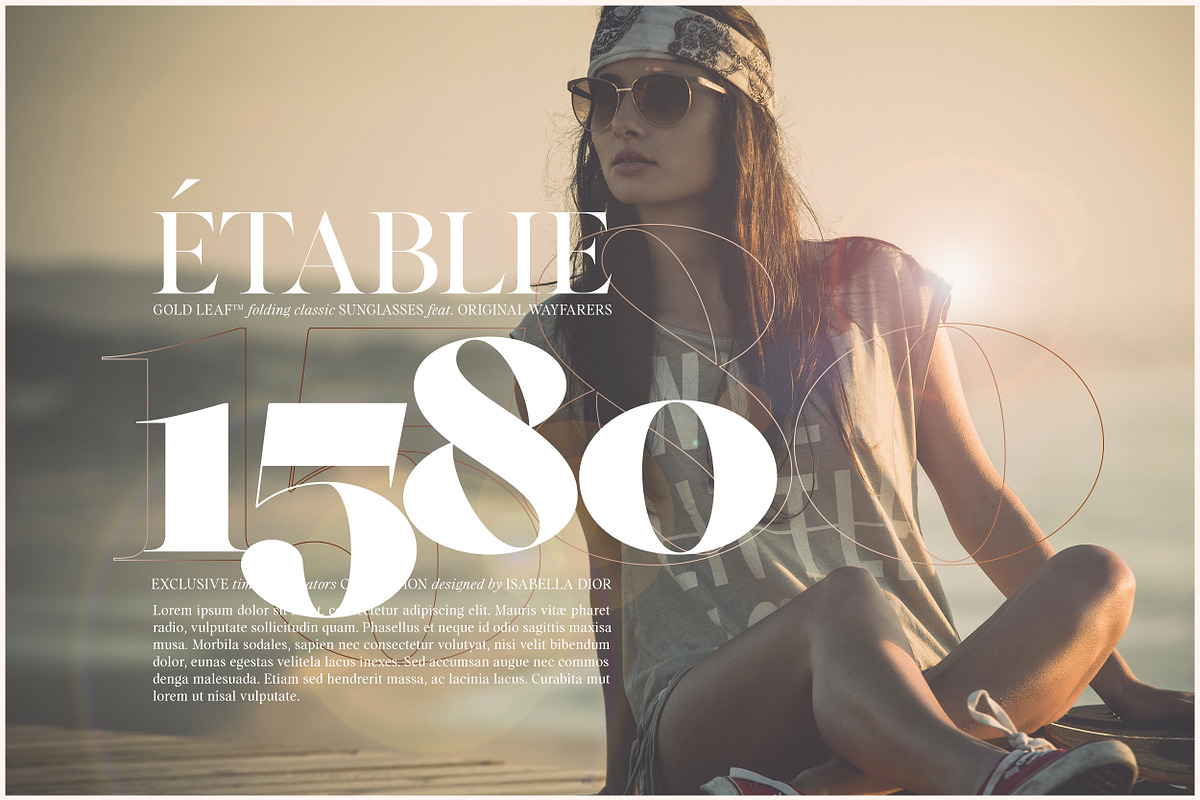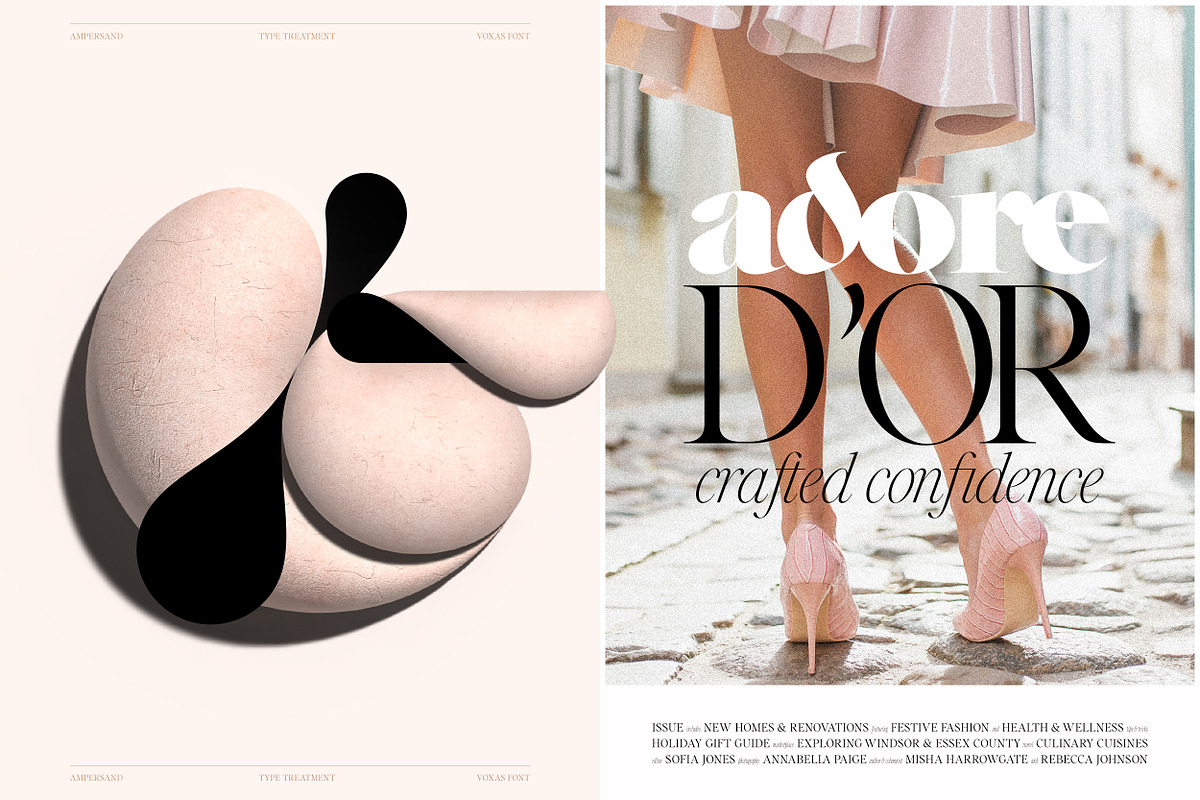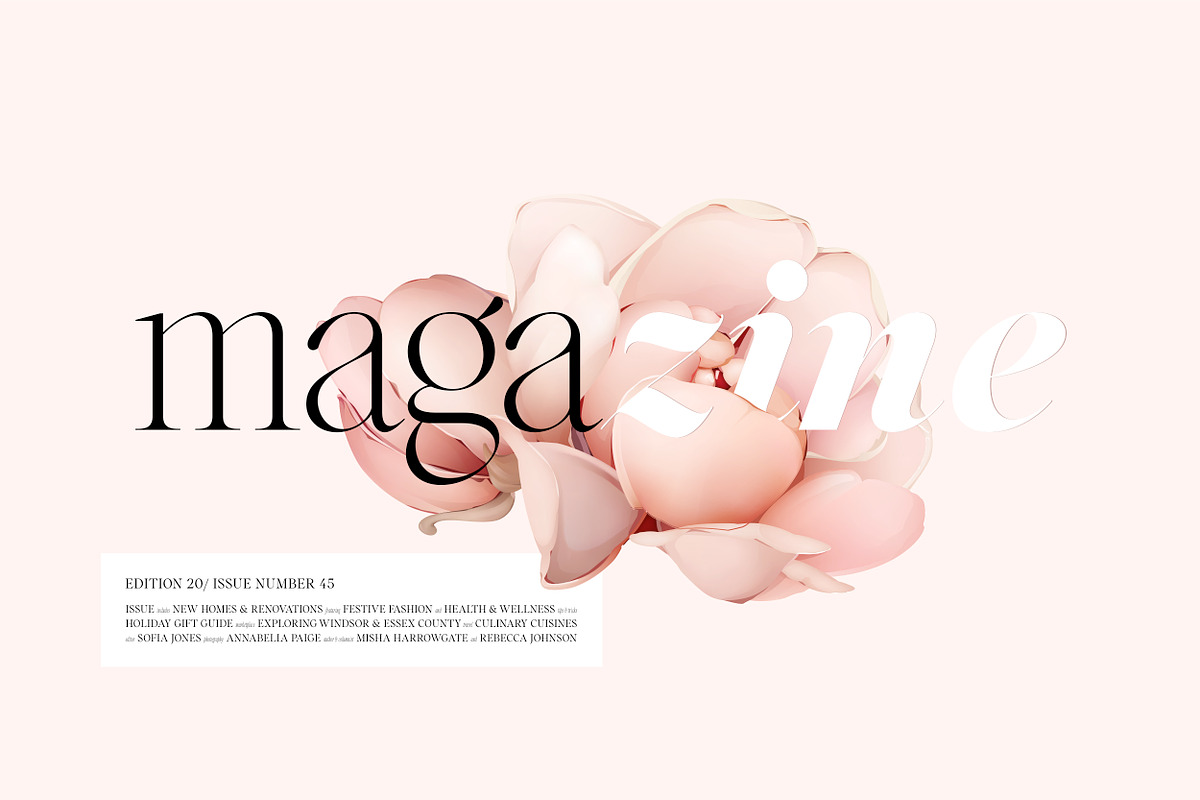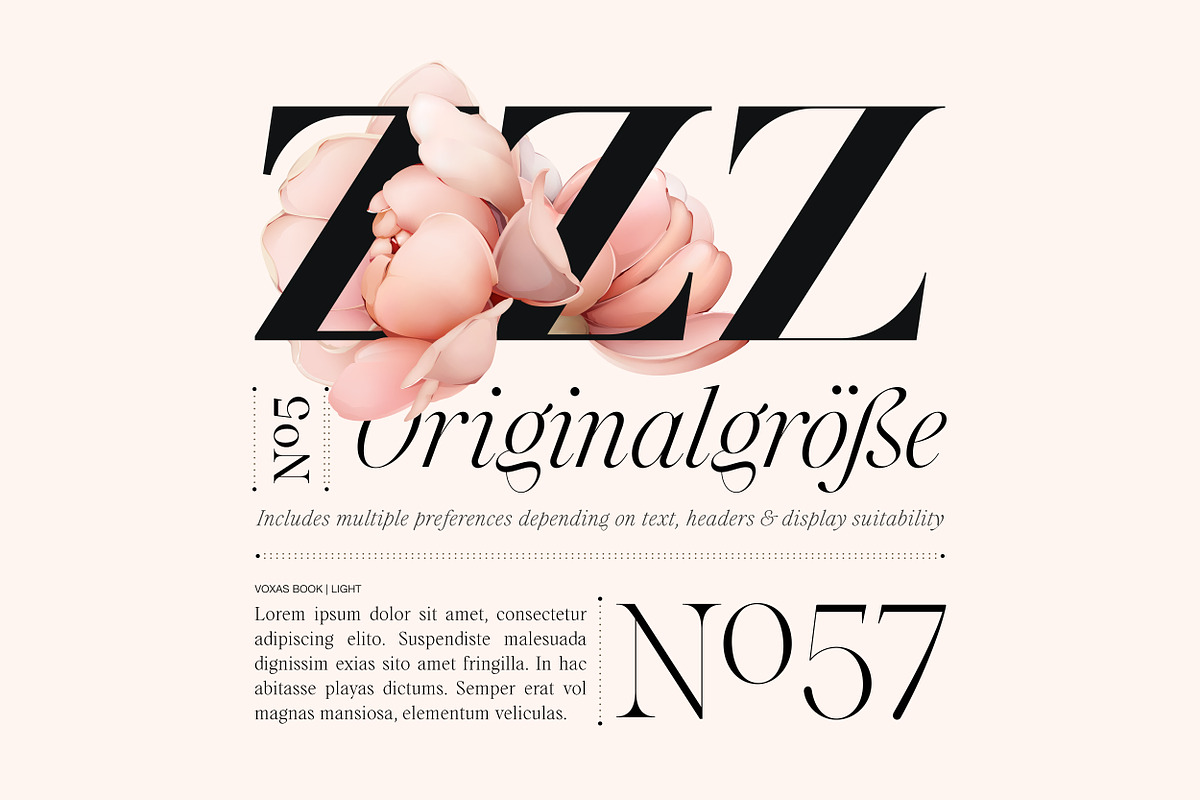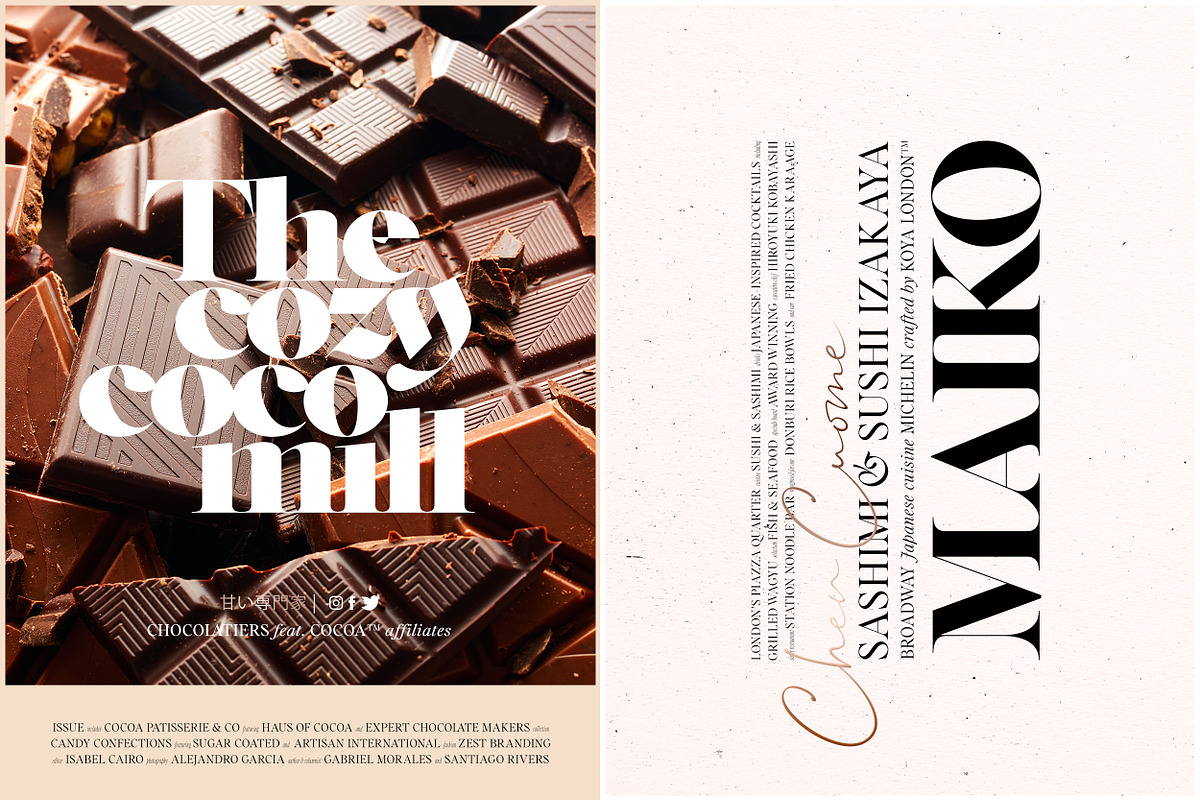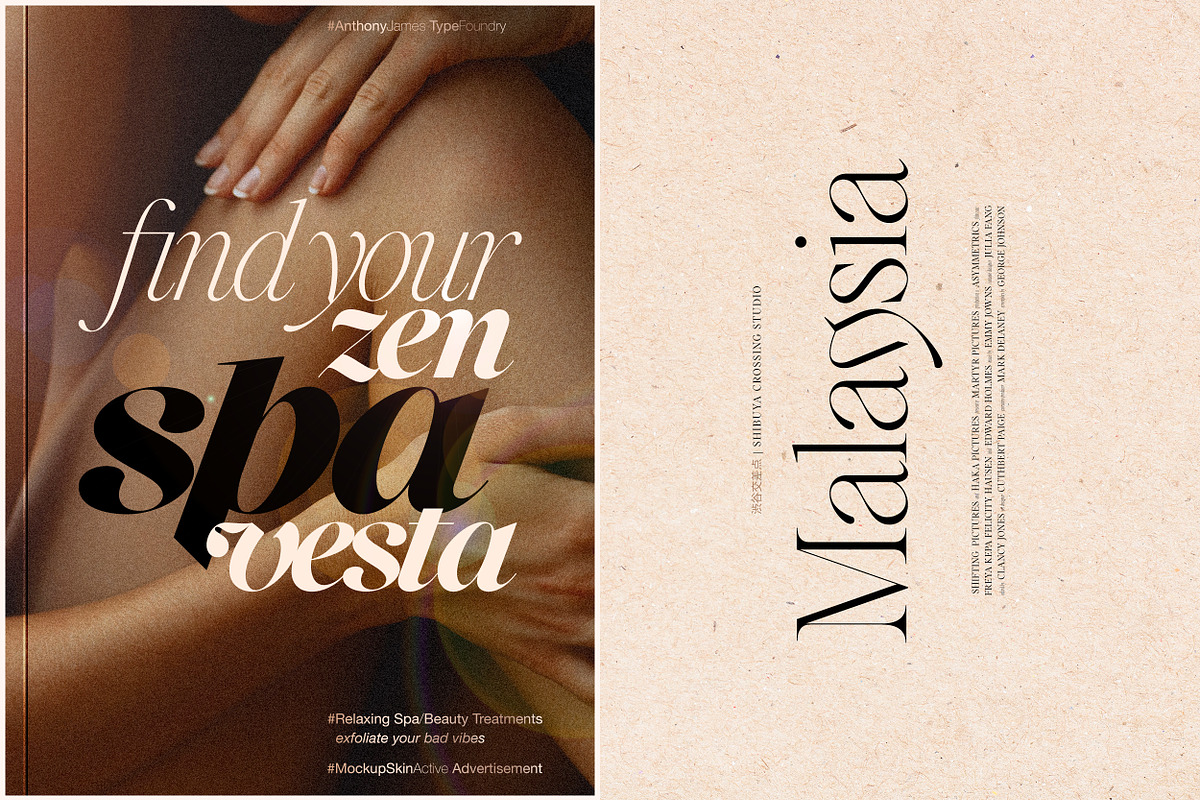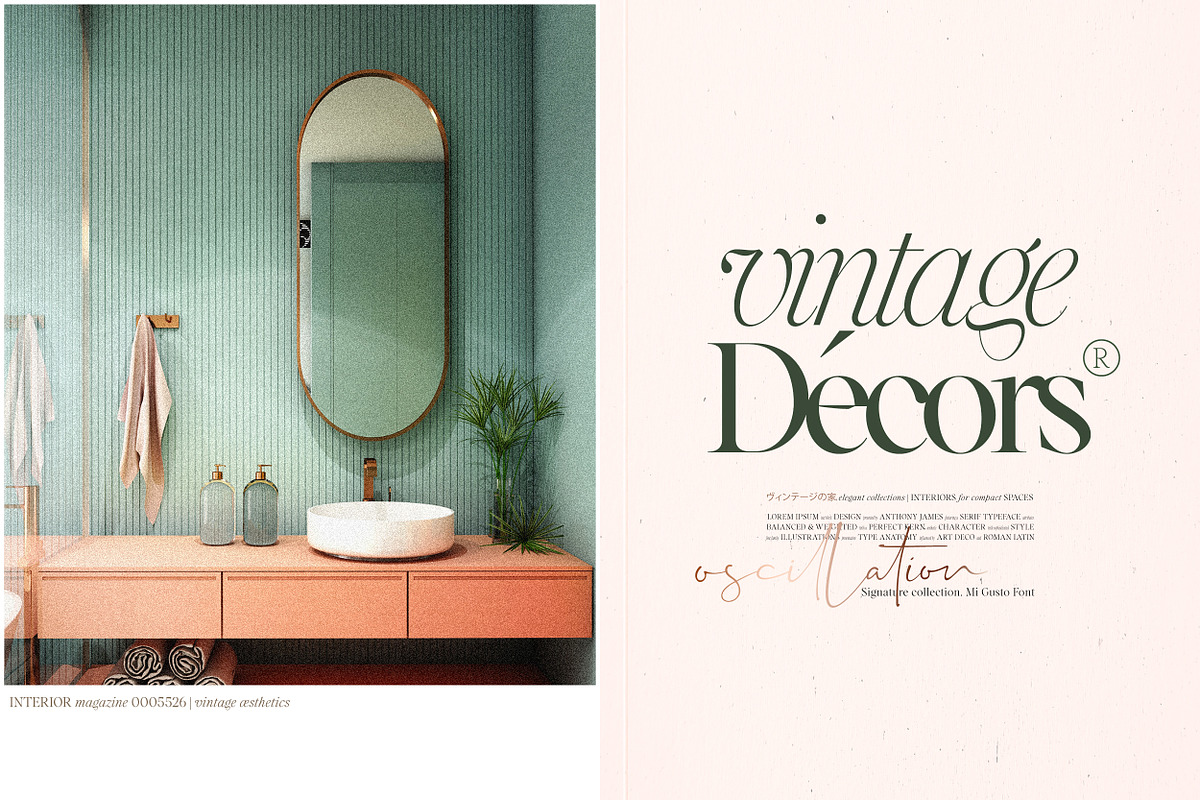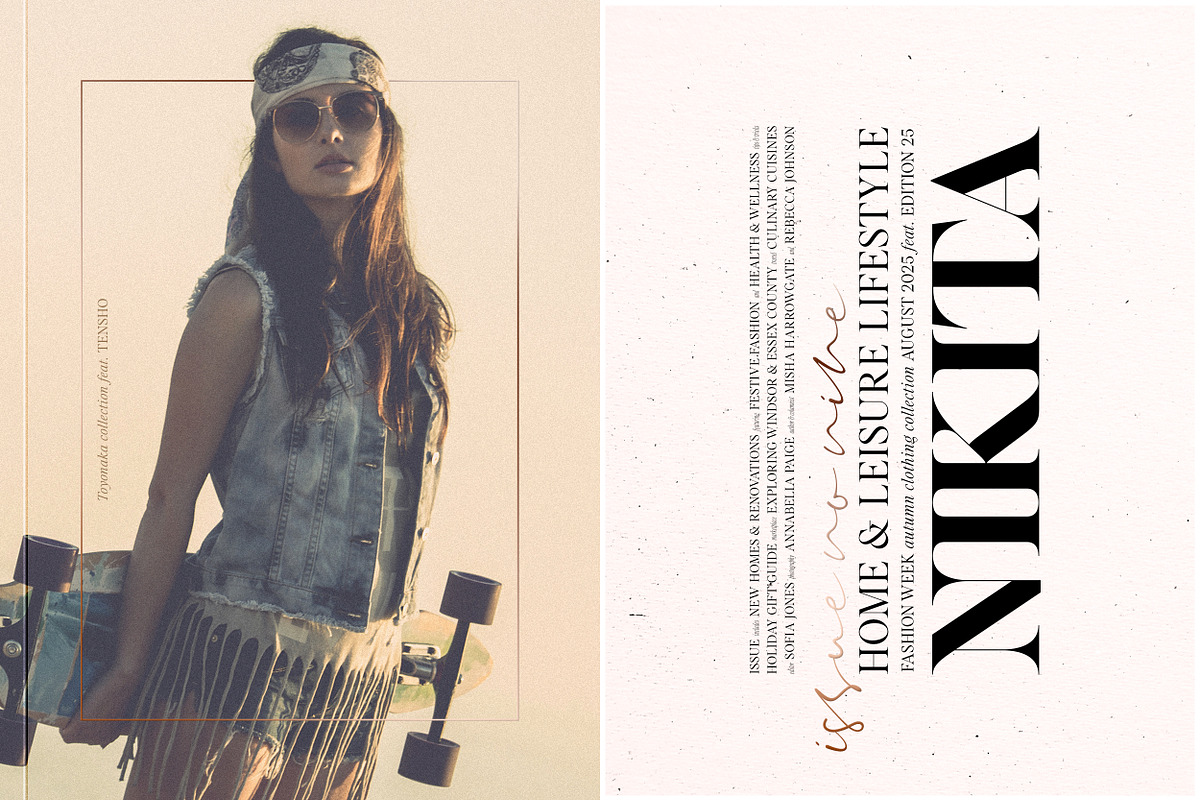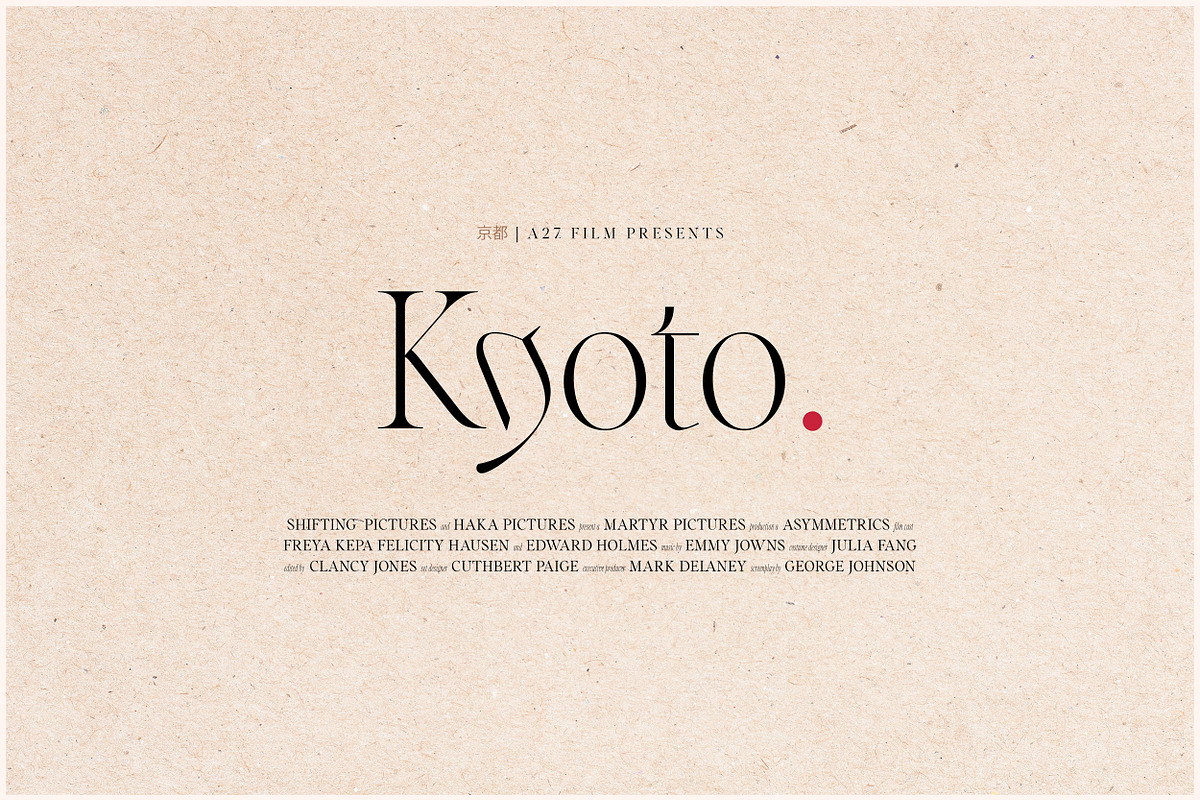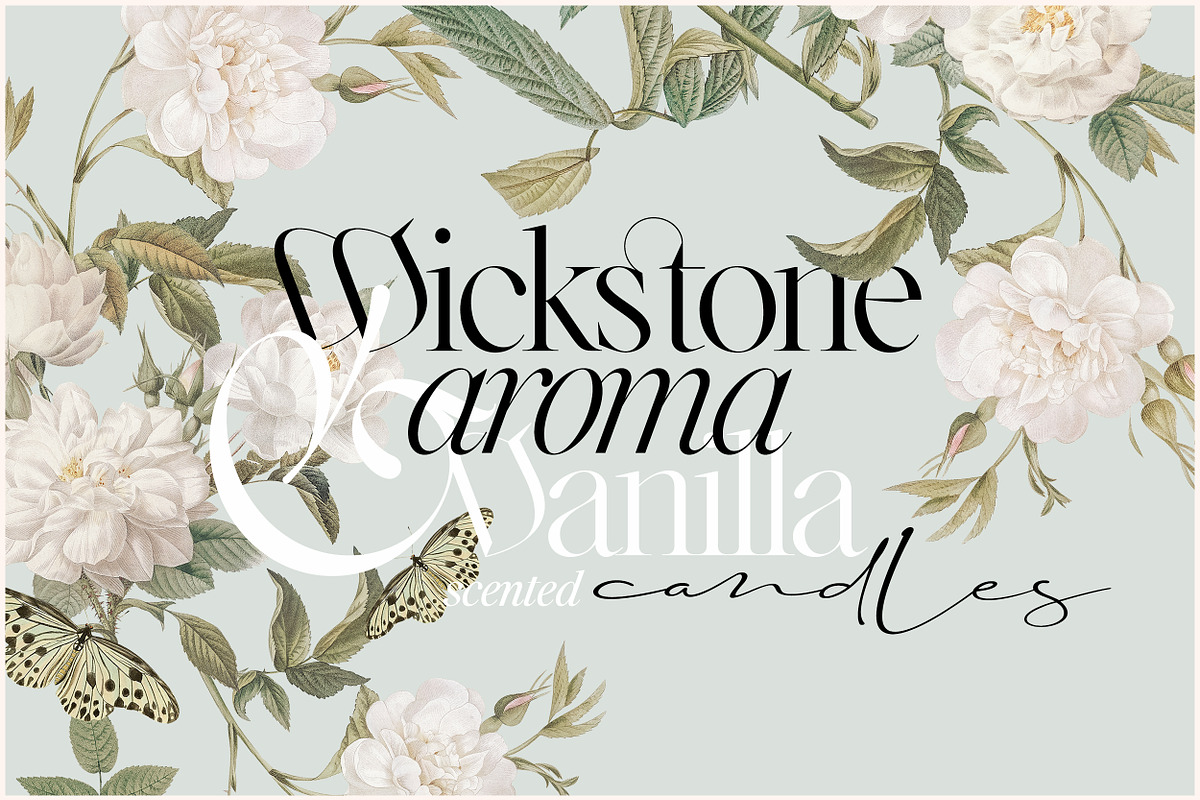
Voxas | 54 Font Serif
54 FONTS | 9 WEIGHTS | 3 STYLES
Introducing our versatile modern serif font, crafted with elegant italics and a robust set of Opentype features. Refined letterforms defined by high-contrast strokes, well balanced bezier curves & a perfect continuity of weights.
Housing 54 fonts (27 matching italics), encompassing endless weight combinations, making it a definitive choice for high-end logos and luxury branding. Thriving as both a commanding display face for bold headlines and a graceful companion for long-form text based features.
For editorial purposes, the spacing is geared towards legibility as body text. For display purposes (fashion/magazine headings), we recommend reducing the letter spacing for a better aesthetic.
54 weights (27 italics)
Regular / Book / Display
590+ Glyph Character Set incl. EXTENDED-LATIN
Opentype features
Small Capitals